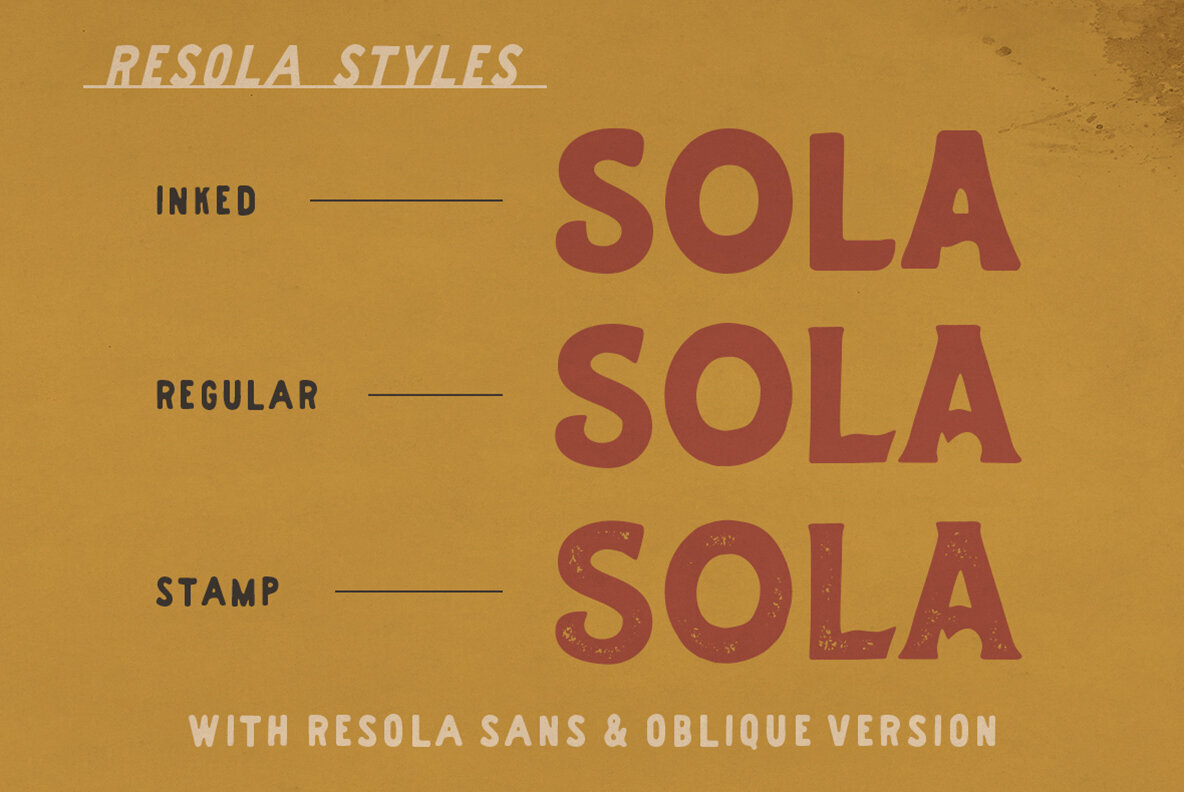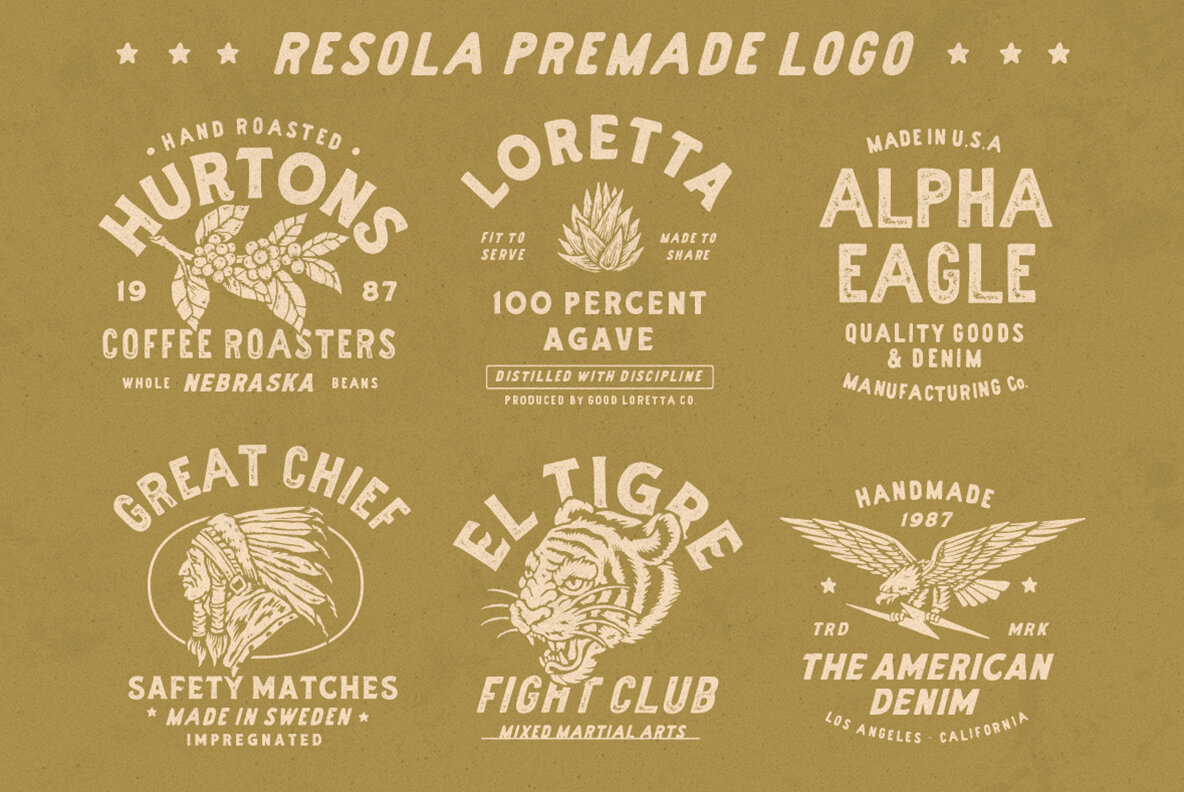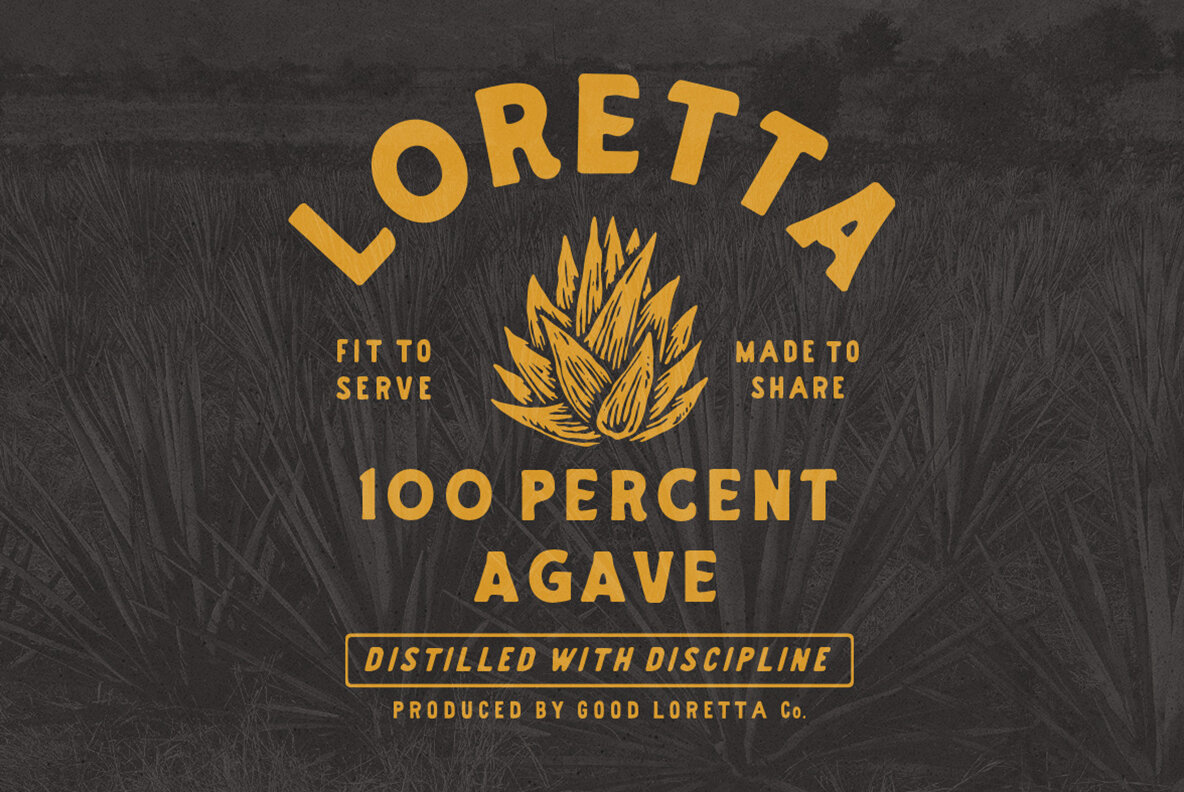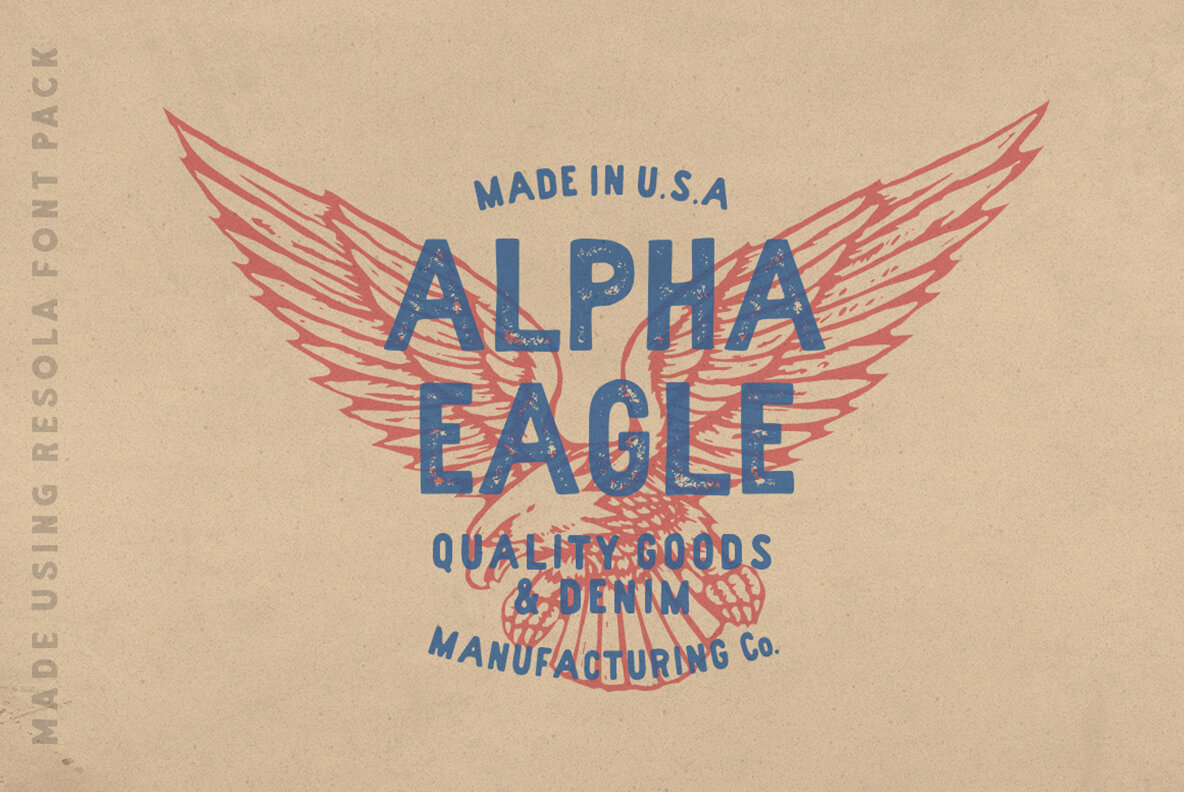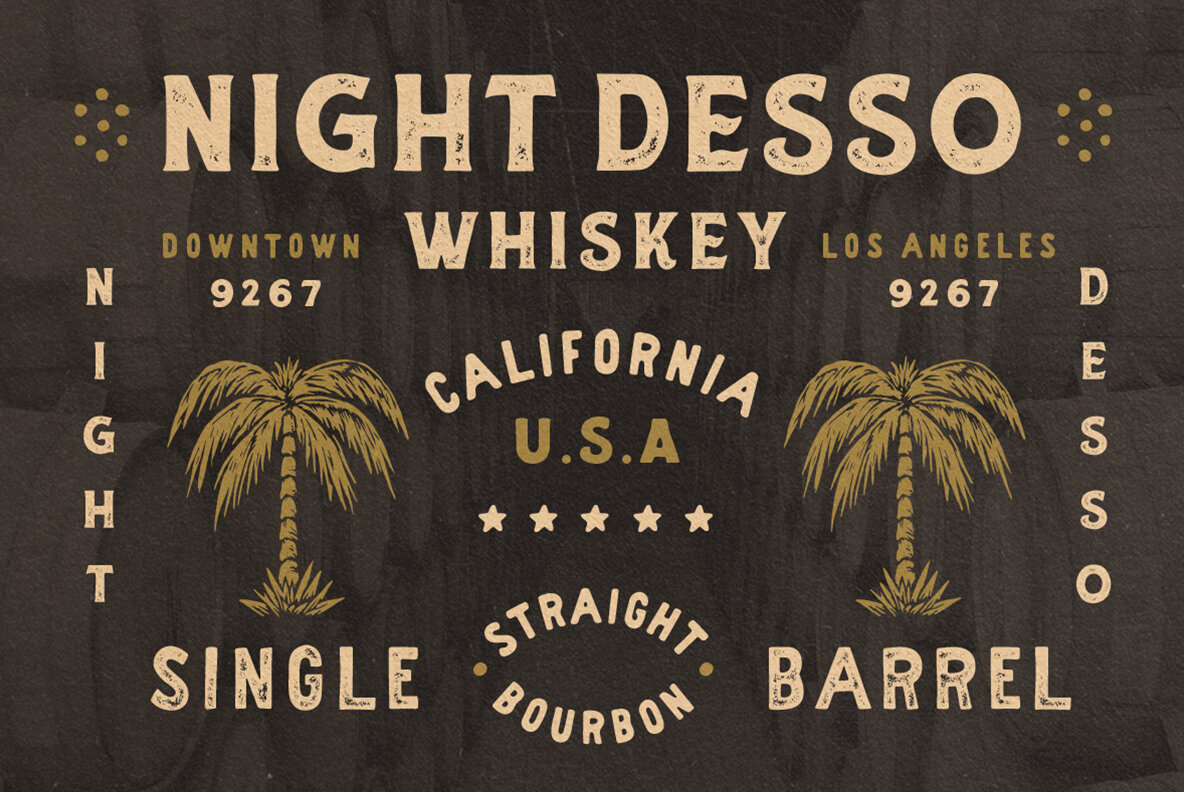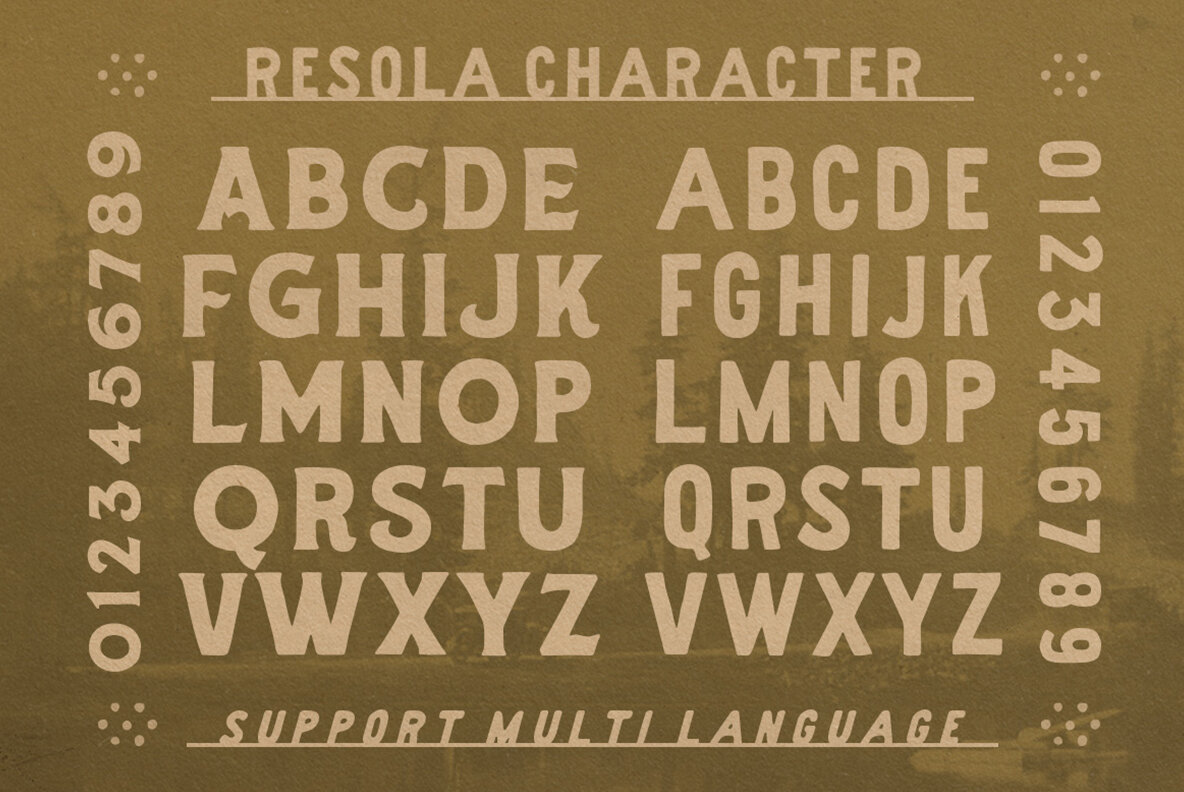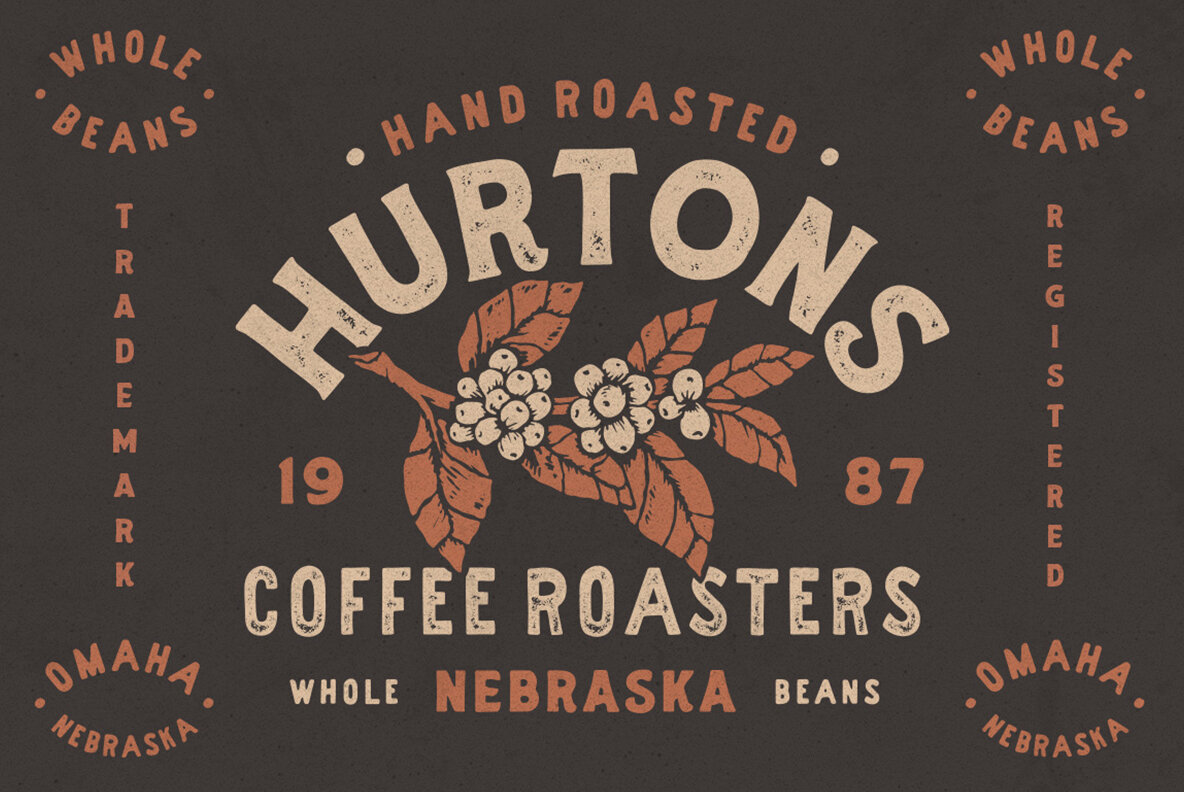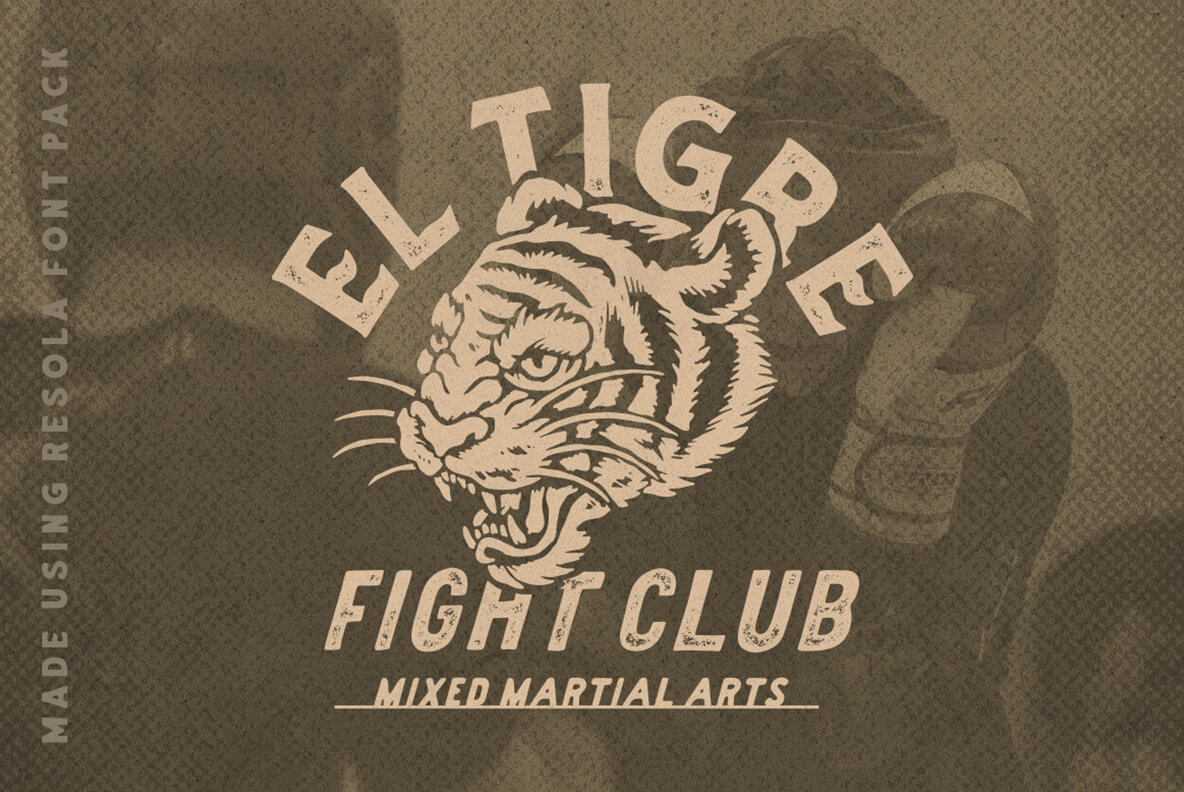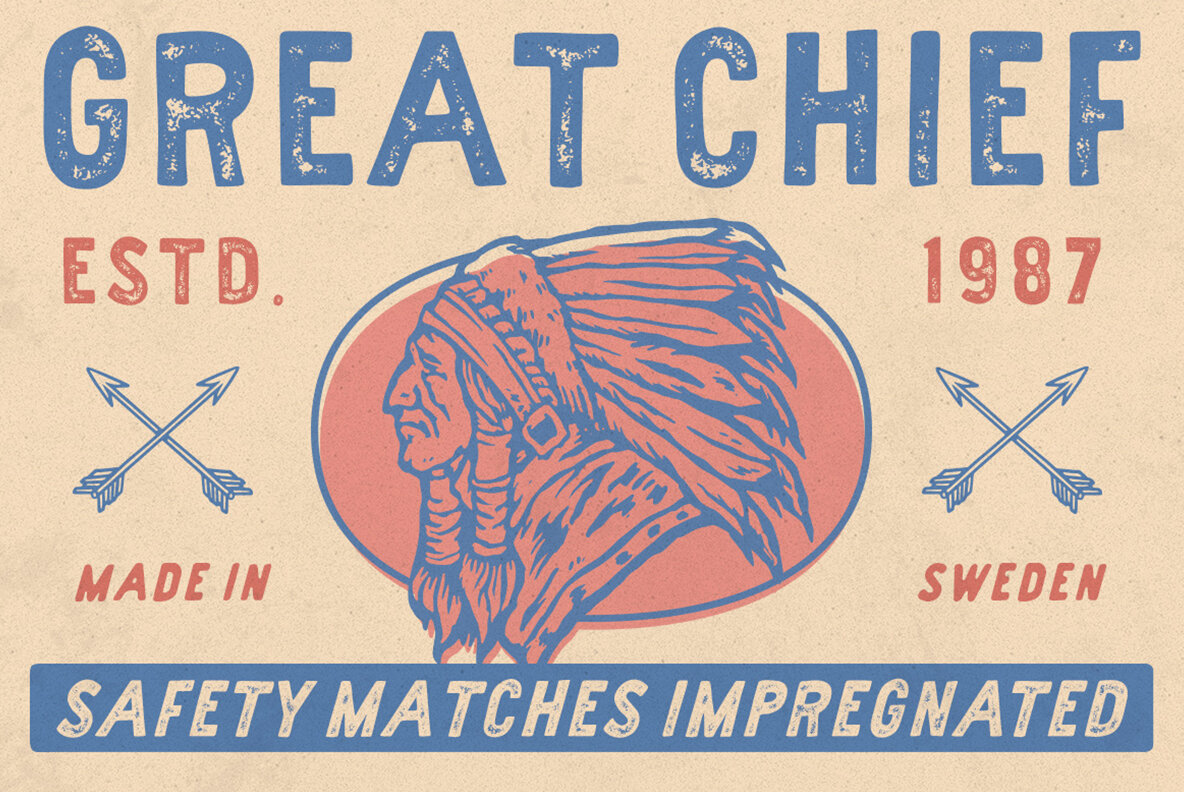
Resola Font
Resola is a hand drawn vintage display typeface. This item consist of 12 fonts in various styles which you can play around with it and also come with extra illustration & premade logo to make better design. This typefaces is perfect for people looking for vintage aesthetic and organic feel.